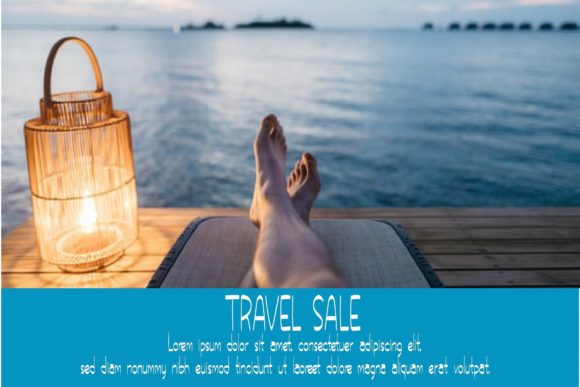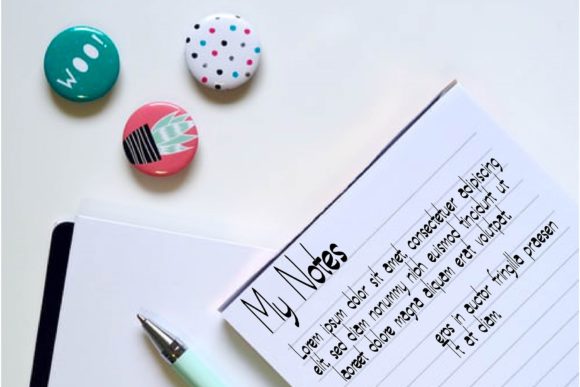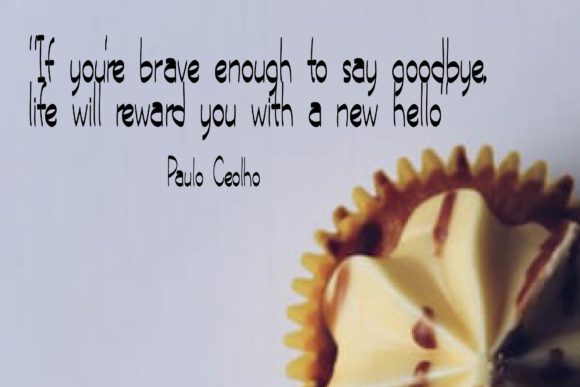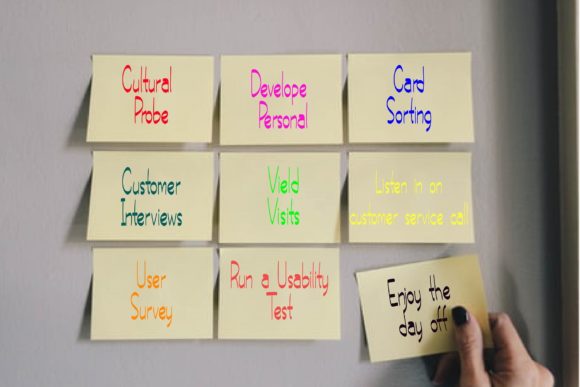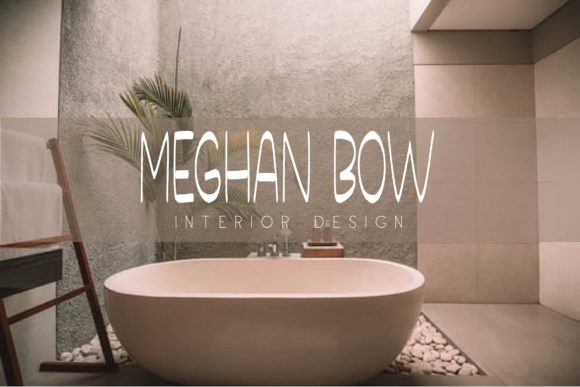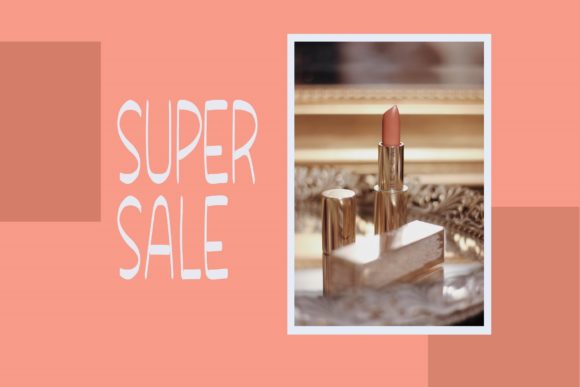
Introduction to Bounces Font
Have you ever been working on a creative project, pouring your heart and soul into it, only to be stuck on finding the perfect font to bring it all together? I’m sure many designers can relate to this frustrating yet exciting moment. It’s that instant when you know your design needs a little something extra to make it pop, and that’s where the Bounces Font comes in – a gorgeous script font that’s sure to elevate your design projects to the next level.
Whether you’re a seasoned designer or just starting out, the Bounces Font is an invaluable resource for any creative project. Its high quality and versatility make it perfect for branding, product packaging, invitations, quotes, t-shirts, labels, posters, or any logo you wish to develop. And the best part? You can even download it for free, making it an essential addition to your design arsenal.
With the Bounces Font, you can create stunning designs with a transparent background that will make your work stand out from the crowd. So why settle for ordinary when you can have extraordinary with this amazing design resource?
Key Features of Bounces Font
- Unique, playful font style with a transparent background, perfect for adding visual interest to designs.
- Designed at a high resolution (300 DPI) for crisp, clear text in both print and digital applications.
- Perfect for use in a variety of creative projects, including logos, branding, and digital graphics.
Honest Review: Bounces Font
I recently had the chance to work with Bounces Font on a creative project and I must say, I was impressed. This font is a great addition to any design resource collection.
What works well with Bounces Font is its high quality and versatility. It comes in a variety of styles and weights, making it perfect for a range of creative projects. I particularly appreciated the transparent background option, which allowed me to easily customize the font to fit my design needs.
- ✨ Customizable transparent background
- ✨ High-quality font options
However, I did encounter a few limitations while using Bounces Font. The font can be a bit tricky to use with certain design software, and the free download version has some restrictions on commercial use.
Overall, I was pleased with my experience using Bounces Font and would definitely consider it for future creative projects. Its high quality and versatility make it a valuable addition to any design resource collection.
Tips for Getting the Most Out of Bounces Font
When using Bounces Font, consider the following tips: Use a transparent background to create a sense of depth and layering. Experiment with different font sizes and styles to add visual interest. You can also pair Bounces Font with other design resources to create a unique look.
Bounces Font is commonly used for creative projects, such as:
- Presentation slides
- Document design
Can I use the Bounces Font with a transparent background?
Yes, the Bounces Font supports transparent backgrounds, allowing you to create stunning designs with a clear background. This feature is especially useful for creating visually appealing graphics and illustrations.
What is the quality of the Bounces Font like?
The Bounces Font is a high-quality design resource, carefully crafted to ensure crisp and clear typography. With its unique style and attention to detail, it’s perfect for designers looking to add a creative touch to their projects.